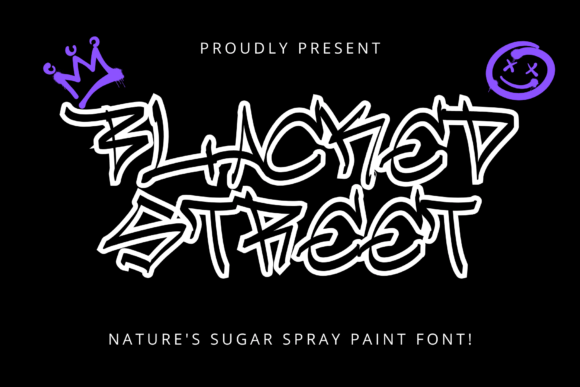
Unlock the Street Smarts of Design with the Blacked Street Font
Have you ever stared at a blank canvas, trying to conjure up the perfect font to elevate your design? The struggle is real, but fear not, because we’ve got the solution you’ve been searching for. It all starts with a dash of creativity and a pinch of inspiration. For designers, finding the right font can be a game-changer, and that’s exactly what the Blacked Street Font offers – a unique blend of style and sophistication.
The Blacked Street Font is a graffiti-inspired typeface that effortlessly combines raw energy with natural, handcrafted strokes. This beautifully evolved font is designed to meet the diverse needs of designers, transforming ordinary visual concepts into modern masterpieces. Whether you’re working on a branding project or a graphic design, the Blacked Street Font is the perfect addition to take your creations to the next level.
• Unique Characteristics: The Blacked Street Font features a distressed, graffiti-inspired design with bold lines and rough textures, giving it a unique and edgy look.
Designer Review: Blacked Street Font
Blacked Street Font is an edgy, graffiti-inspired sans-serif typeface that’s sure to make a statement in any design project. ✨ I love the bold, urban feel it brings to the table. Here are some of its strengths and weaknesses.
• ✨ Distinctive graffiti aesthetic that adds a touch of urban grit to designs
• ✨ Highly versatile, suitable for headings, titles, and even body text
• ✨ Comes in a range of weights, from light to bold, for added flexibility
• ⚠️ Limited legibility in small font sizes or at a distance, which may require adjustments
• ⚠️ Not ideal for formal or professional projects, as it may come across as too casual or edgy
• ⚠️ Some characters may not be as refined or polished as those in more traditional typefaces
I’d give Blacked Street Font 4 out of 5 stars. It’s a fantastic choice for designers who want to add a bold, urban touch to their projects. However, it may not be the best fit for every project, and some users may find it too edgy or unrefined. With proper usage and attention to legibility, Blacked Street Font can be a real showstopper.
Tips for Getting the Most Out of Blacked Street Font
Use Blacked Street Font for bold, edgy designs that require a gritty feel.
Pair it with bright colors and bold graphics for maximum impact.
Experiment with different font sizes and styles to create a unique look.
Use Blacked Street Font for:
Streetwear brand logos and marketing materials.
Urban fashion designs and advertisements.
Edgy social media graphics and posts.